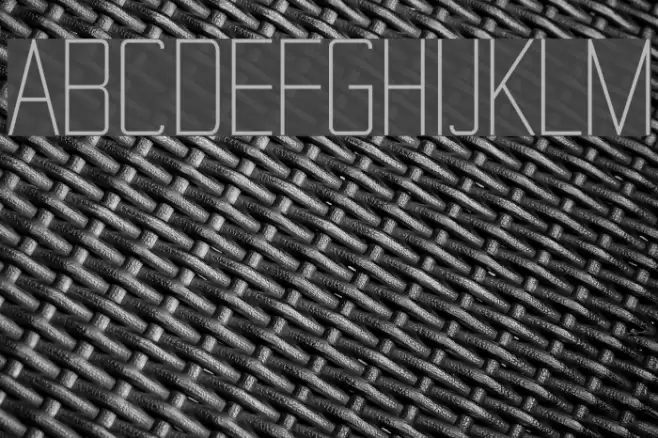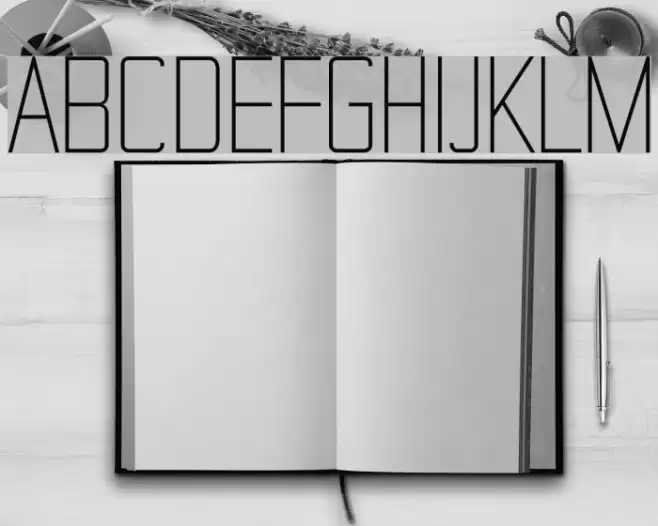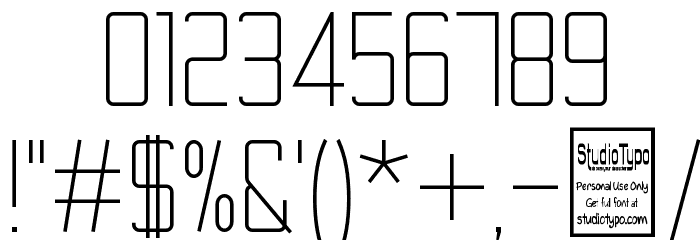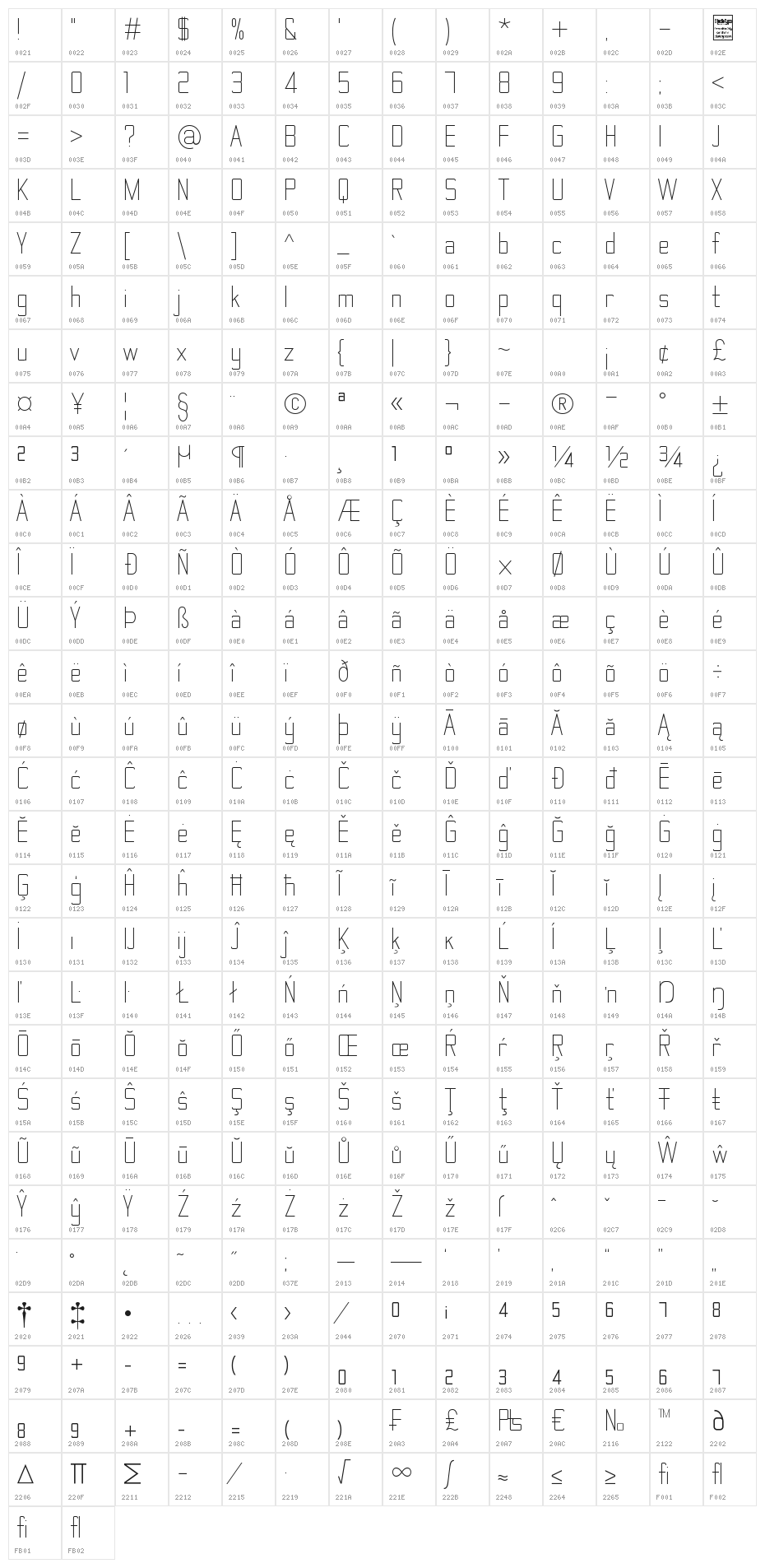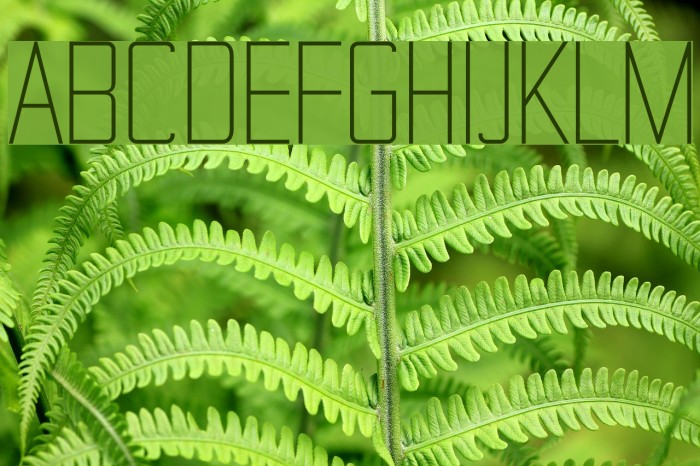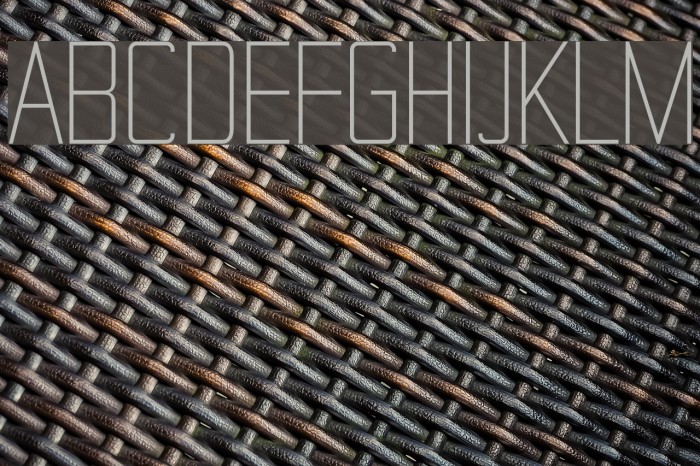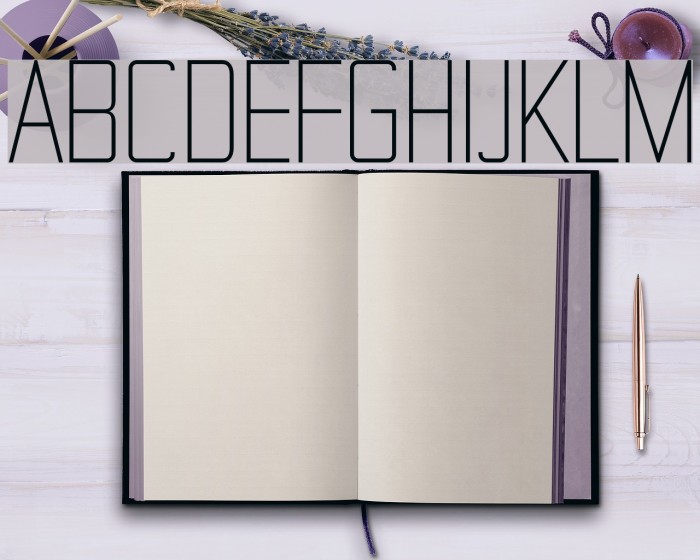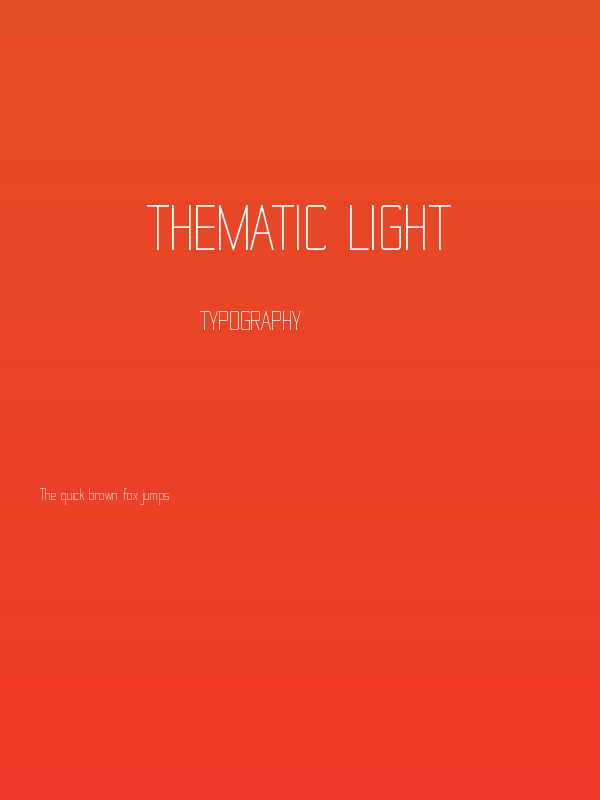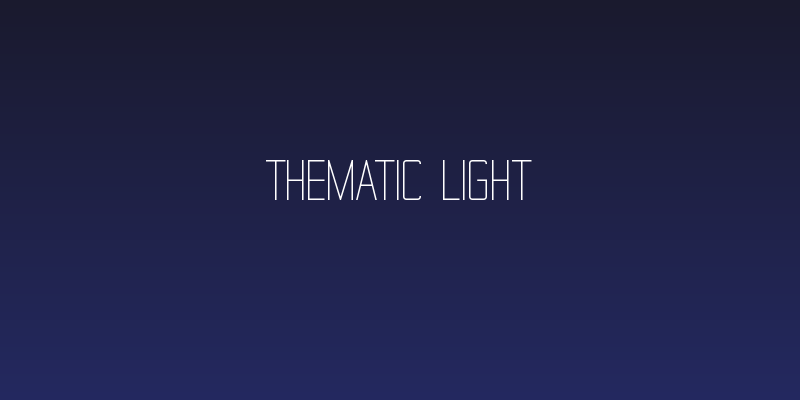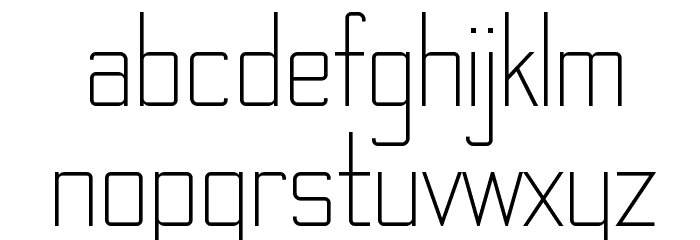
TheMatic Light Font
TheMatic Light Description
This font features a clean, geometric design with a modern aesthetic. The characters are constructed with thin, uniform lines, giving it a light and airy feel. The uppercase and lowercase letters maintain a consistent height, contributing to a balanced appearance. The numerals and special characters are designed with the same minimalist approach, ensuring readability and style. This font is ideal for projects that require a contemporary and sleek look, such as tech branding or modern editorial layouts.
A modern, geometric font with thin, uniform lines and a minimalist design from Uncategorized fonts.
- Proposed Projects: Ideal for tech branding, modern editorial layouts, minimalist posters, and digital interfaces.